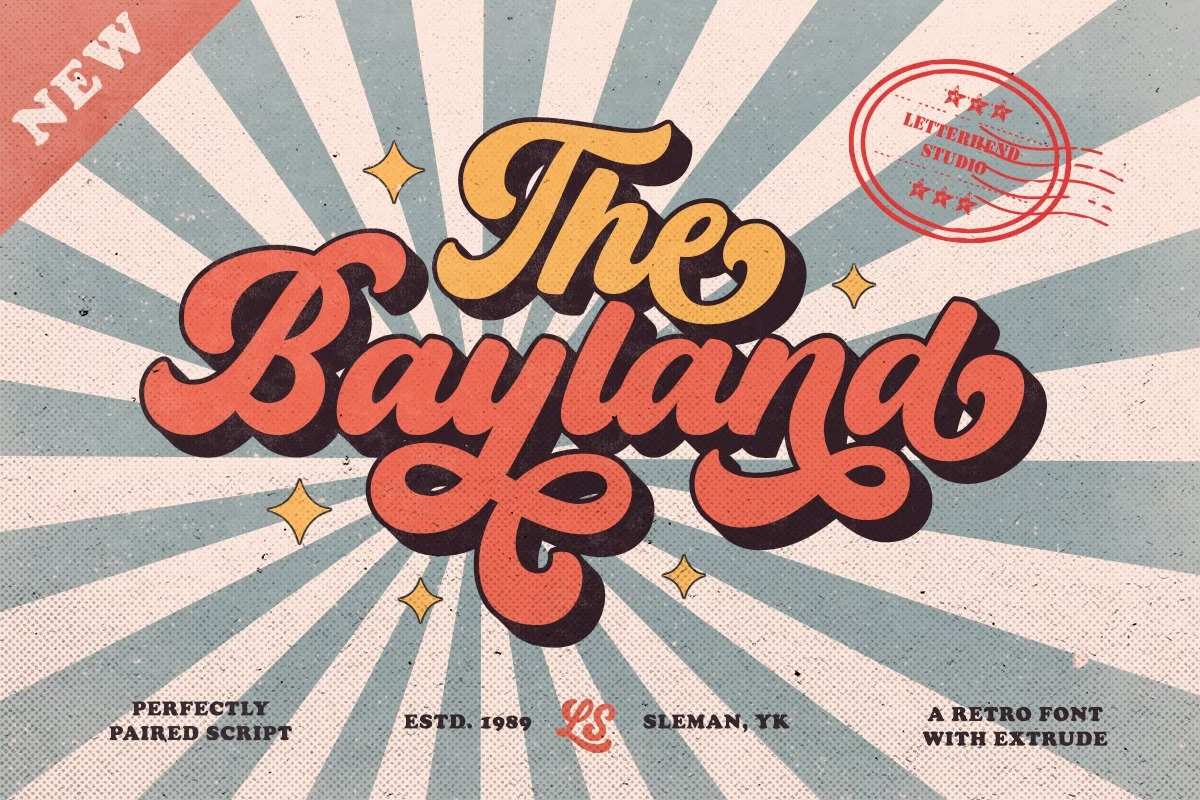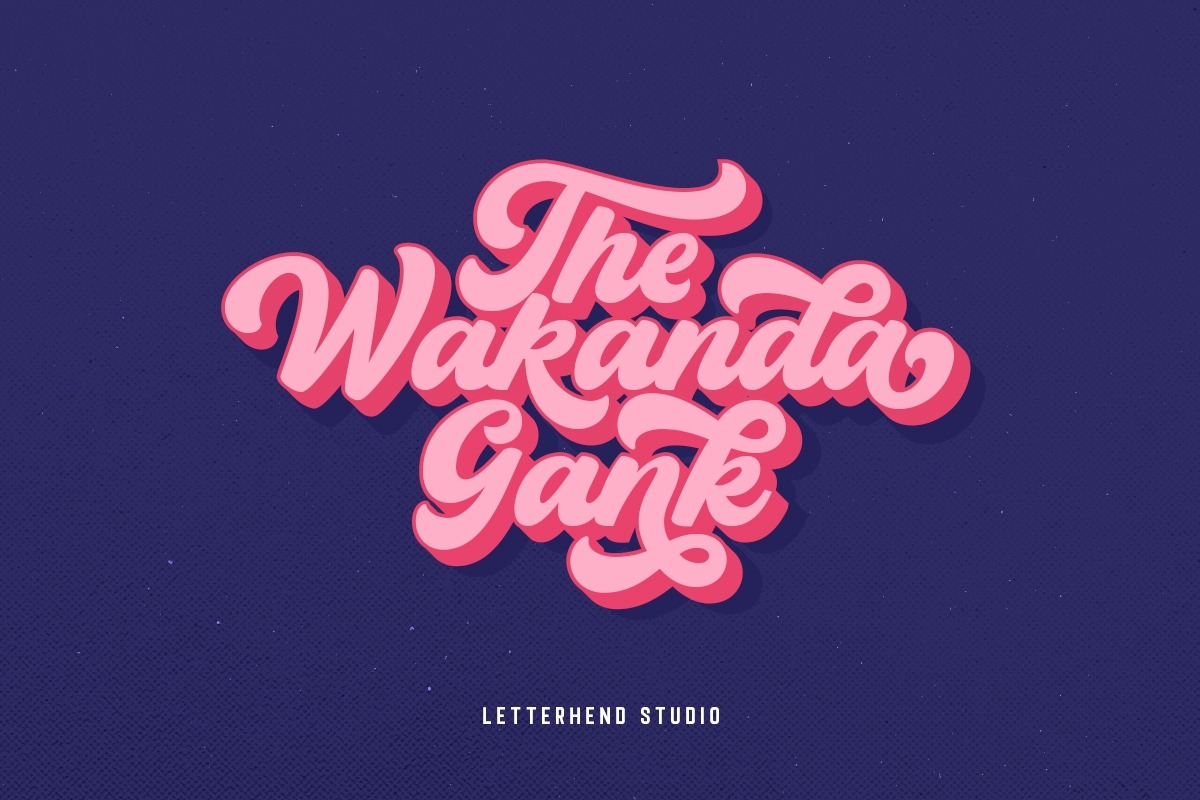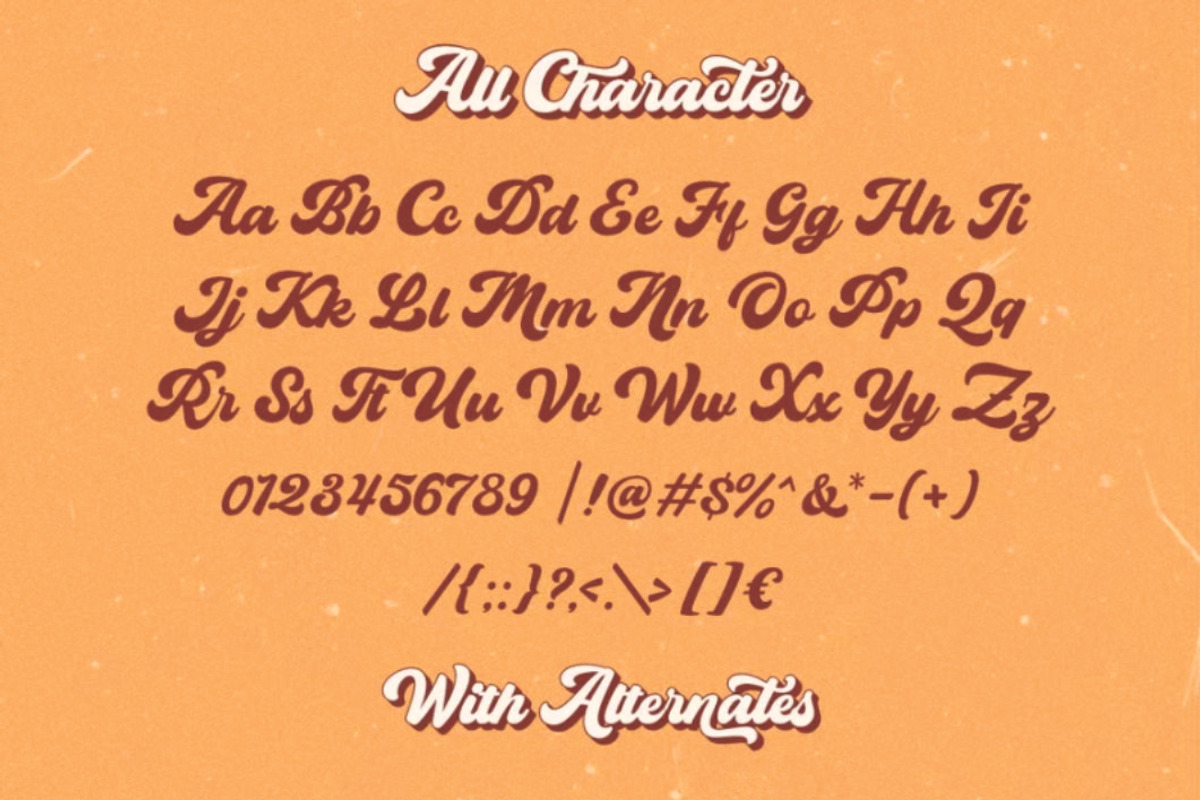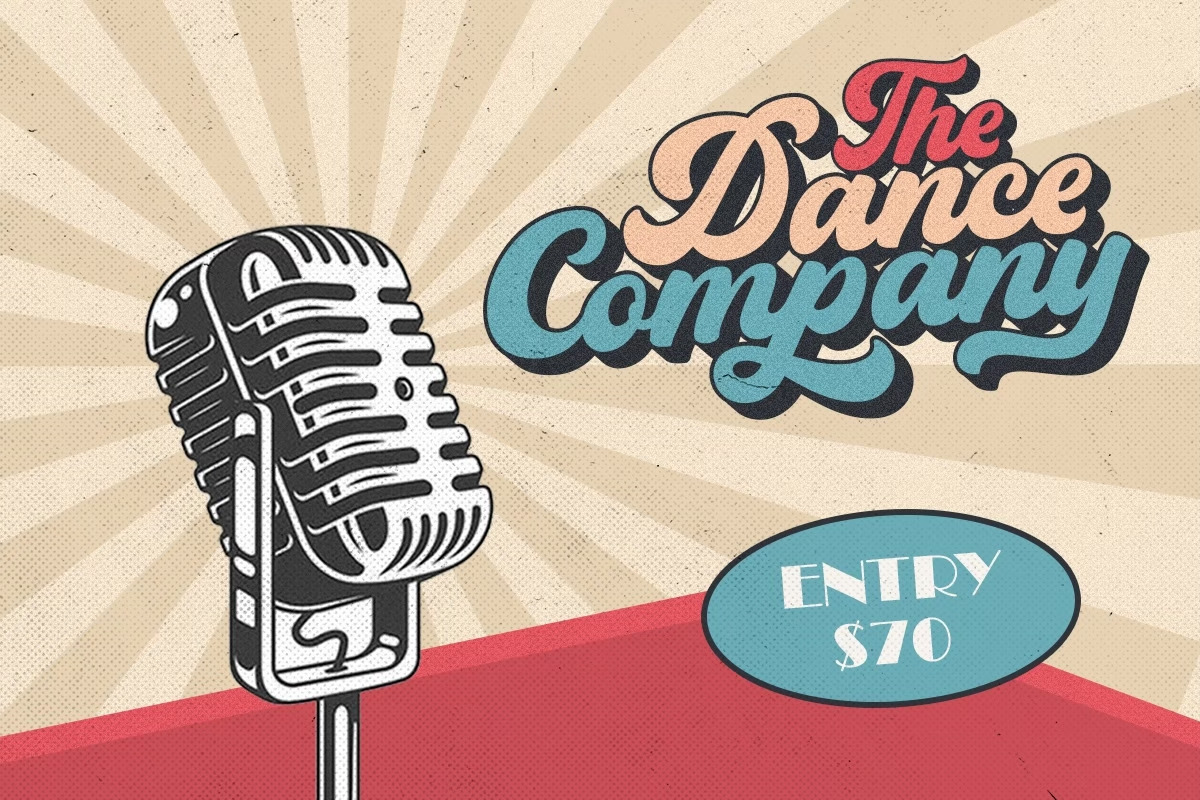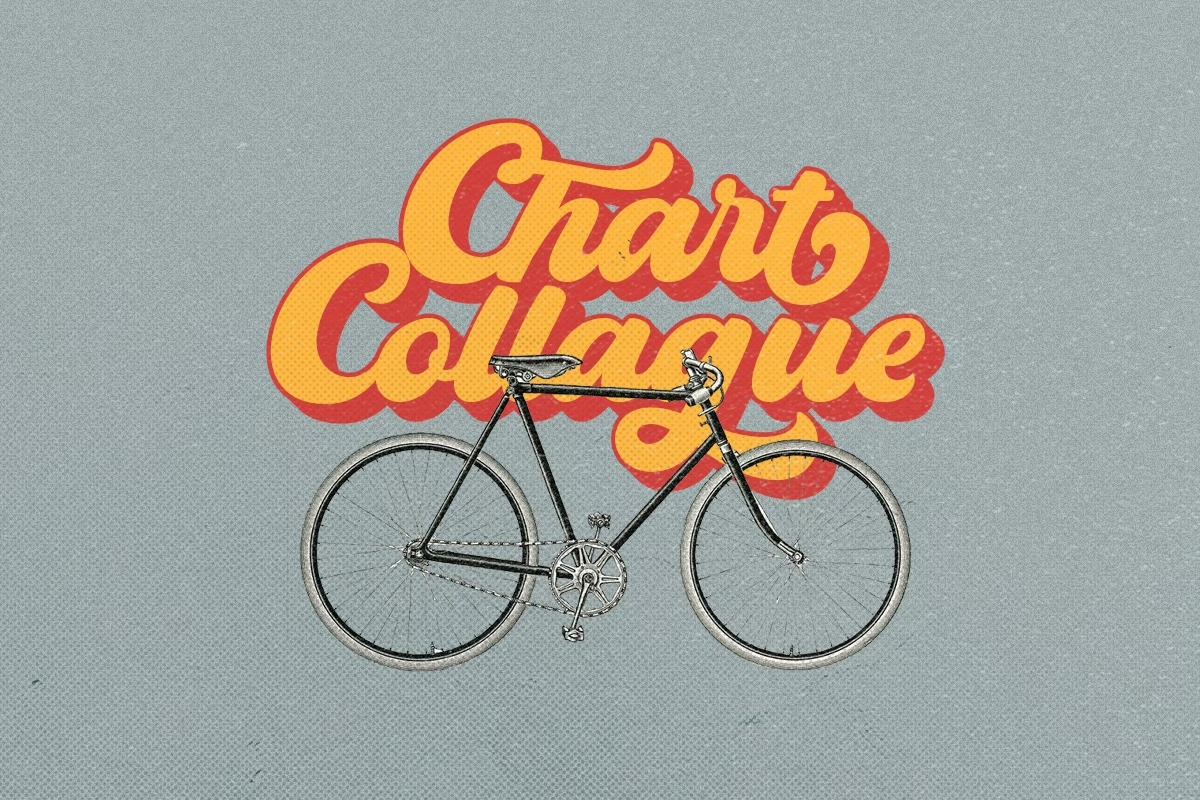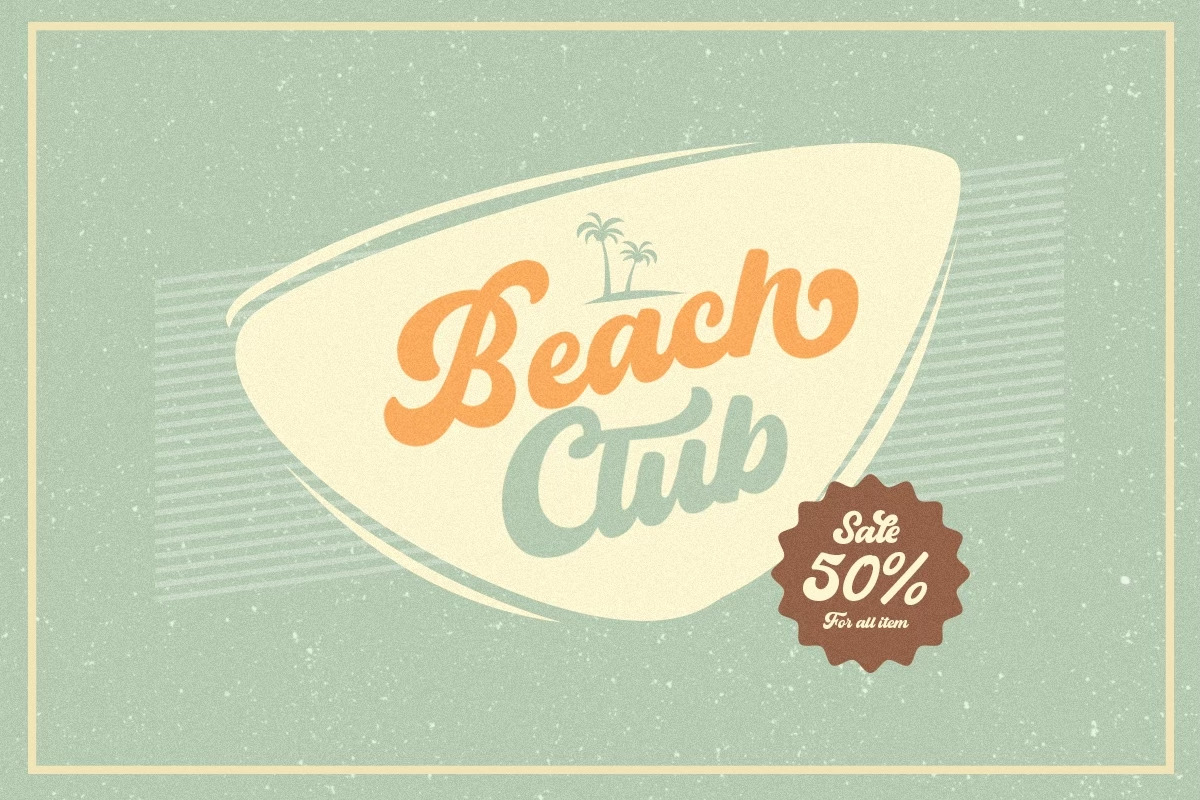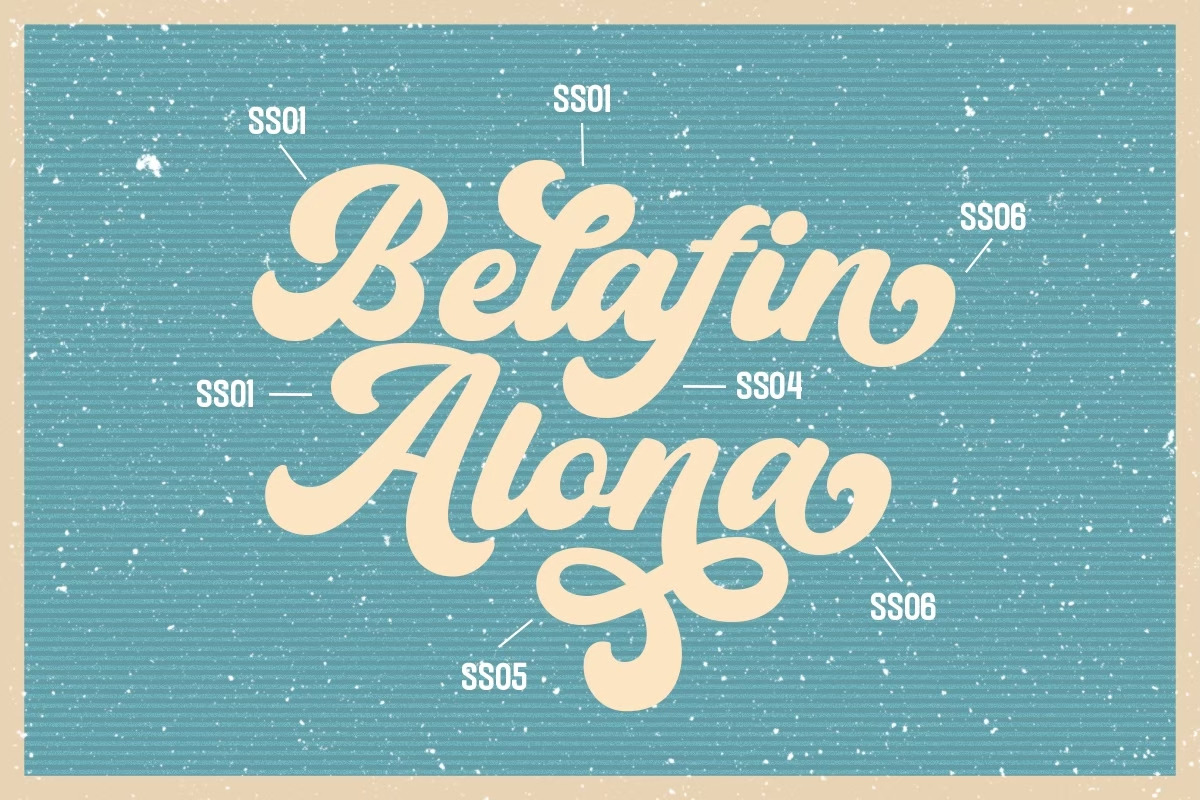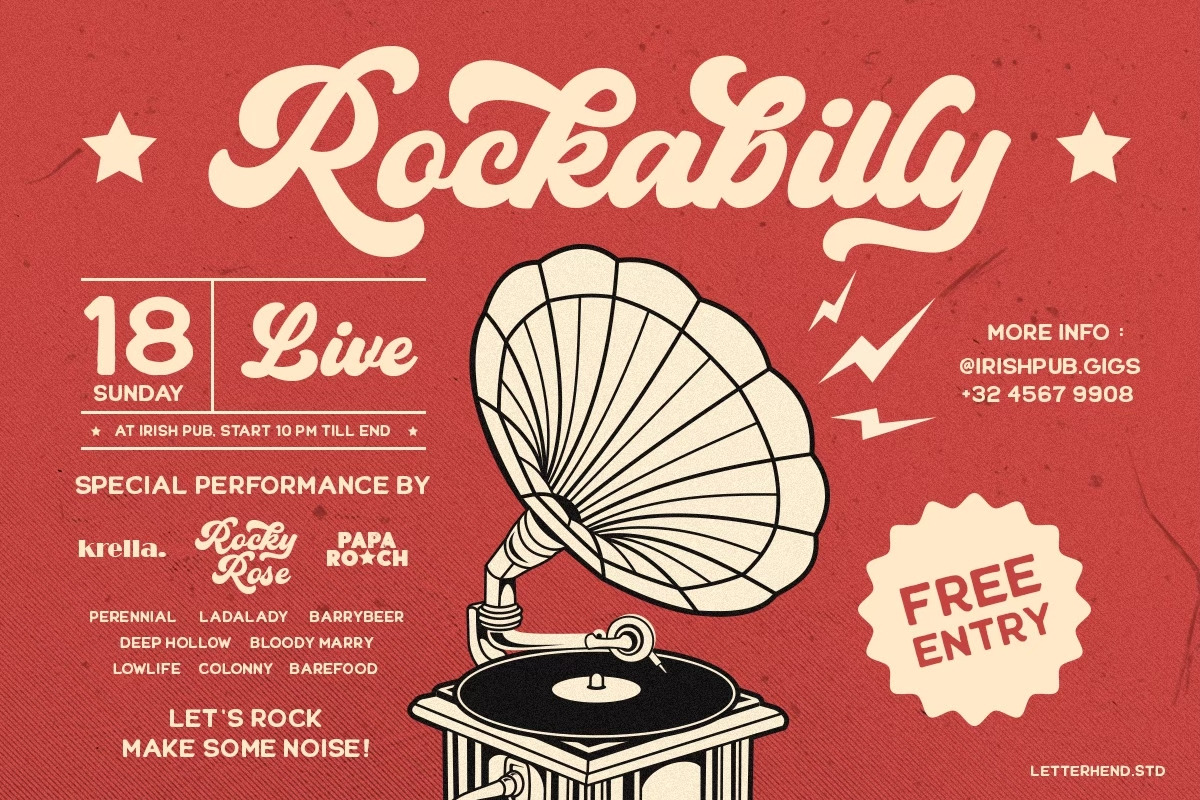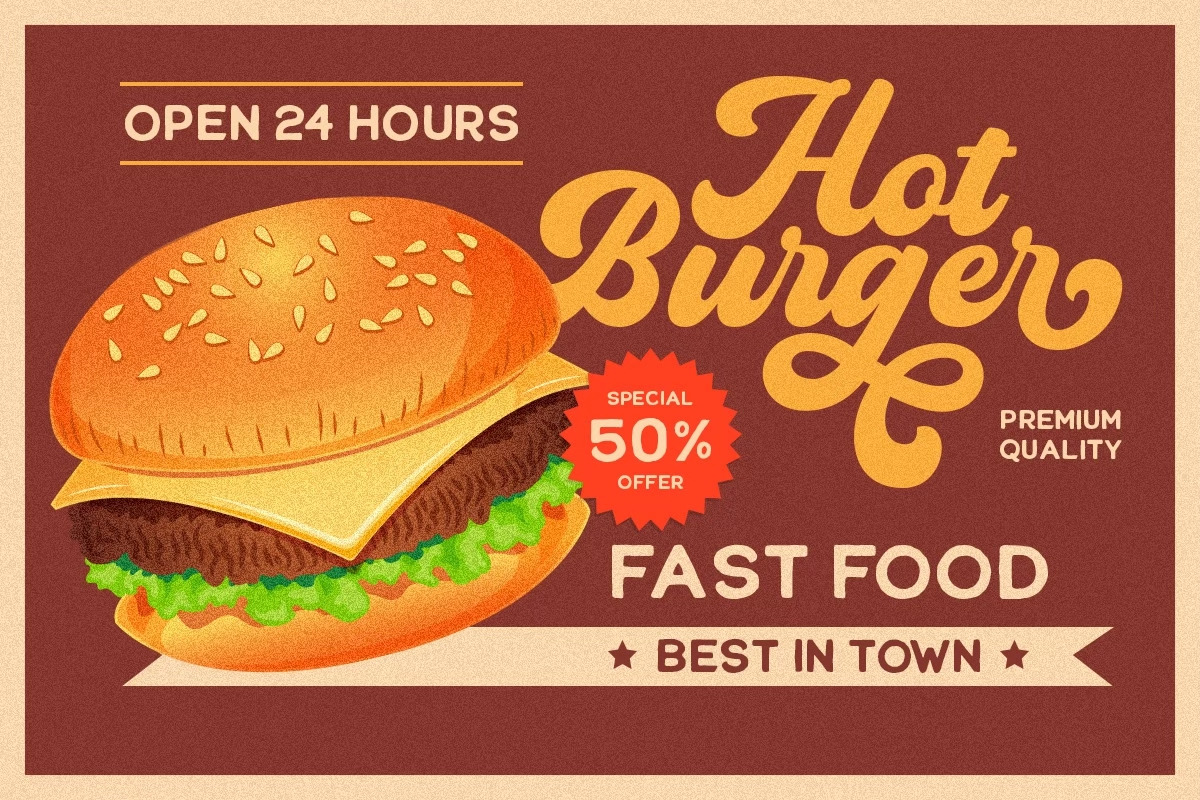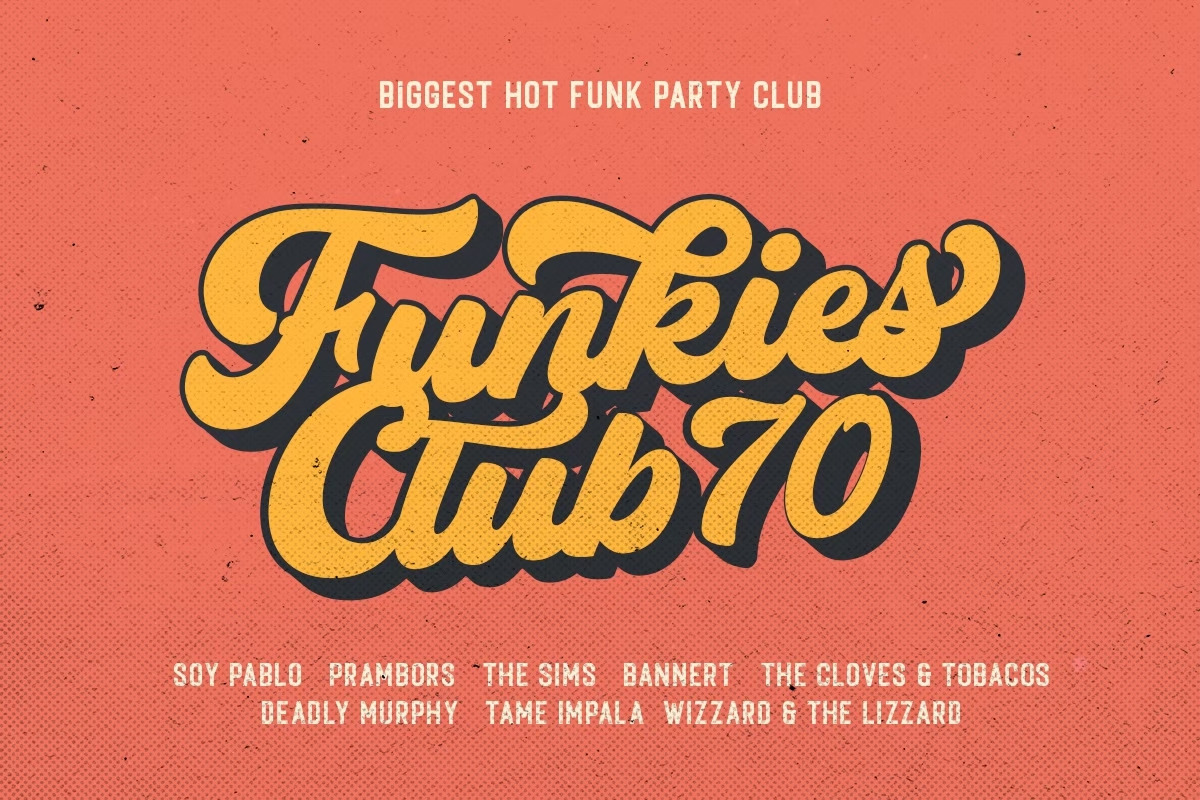
The Bayland - Retro Font
Introducing, The Bayland. A retro bold script which will bring you back to 60s feel. This typeface has the extrude version so you can create your retro effect font in ease. This font perfectly made to be applied especially in logo, and the other various formal forms such as invitations, labels, logos, magazines, books, greeting / wedding cards, packaging, fashion, make up, stationery, novels, labels or any type of advertising purpose.
- alternates
- swashes